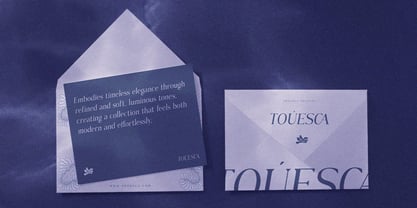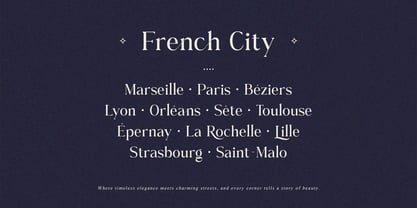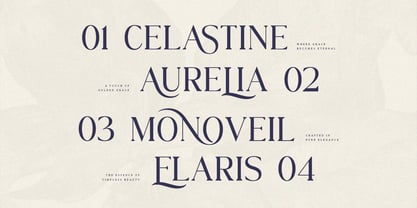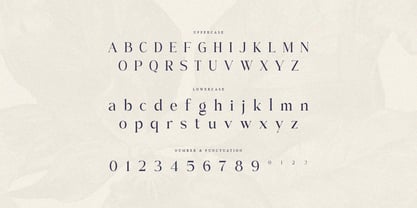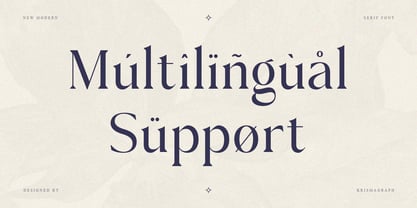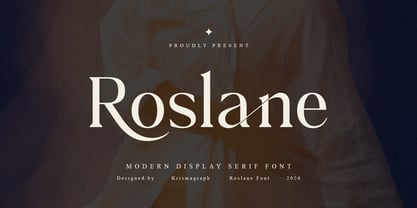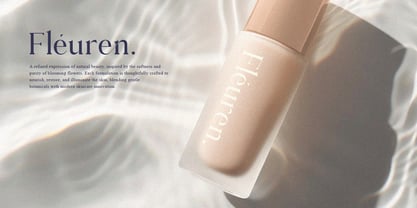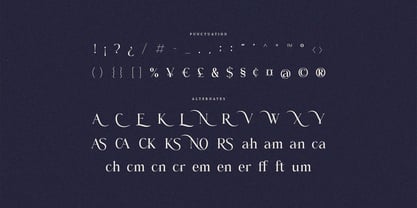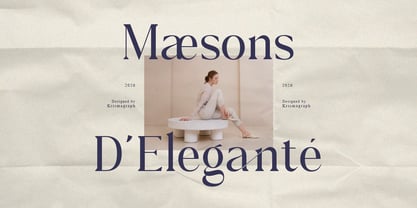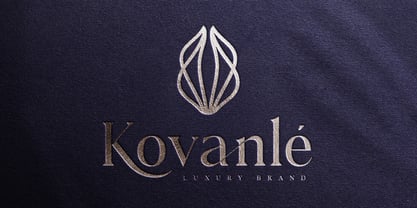
Roslane
by Krismagraph
The Roslane Font Family was designed by Ratna Krismawati and published by Krismagraph. Roslane contains 1 styles. More about this family
Roslane is a modern high-fashion display serif that embodies quiet confidence and effortless grace. Drawing on the lineage of great editorial serifs, it refines those traditions with sharper contrast, more dramatic swells, and a contemporary silhouette that feels entirely of this moment.
The letterforms are sculpted with remarkable attention to flow — ascenders reach with purpose, curves resolve with precision, and the overall rhythm of the face has the composure of a well-chosen word. Roslane is particularly at home in luxury fashion editorials, fine fragrance branding, high-end beauty campaigns, premium hospitality identities, architectural publications, and bridal collections.
What separates Roslane from the sea of editorial serifs is its restraint. Nothing is overdone. The elegance is structural, not decorative — which means it ages with the same grace it debuts with.
Designers: Ratna Krismawati
Foundry: Krismagraph